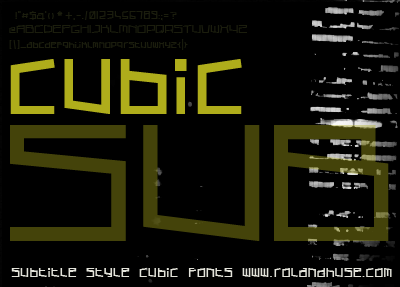
Preview and download Cubic Sub Font. Created by Runes & Fonts in Techno Square styles with Free for personal use license.
CUBIC SUB is an experimental geometric modern look font. This font is free for personal use only. If you need extra character or language extension please contact me at myhandwritings@gmail.com Also feel free to drop me a line in case of questions or feedback.Mostly in case of any problems with the characters, pairs, installation etc. That would also help me in my design work, and would be greatly appreciated! Roland Huse, http://www.rolandhuse.com http://www.myhandwritings.com |